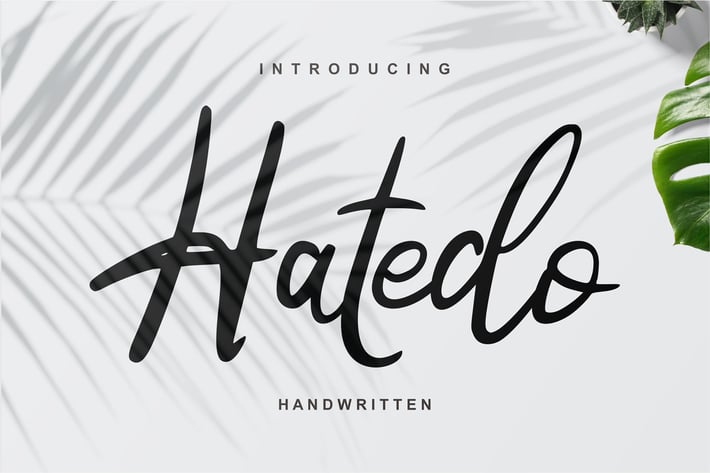
Hatedo | Handwritten Script Font
Hatedo | Handwritten Script Font with a calligraphy style, So beautiful on invitation like greeting cards, branding materials, business cards, quotes, posters, and more!